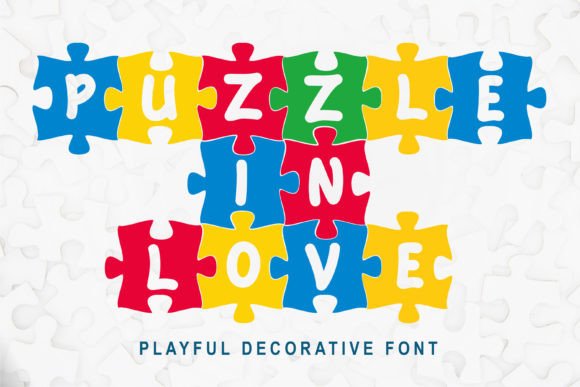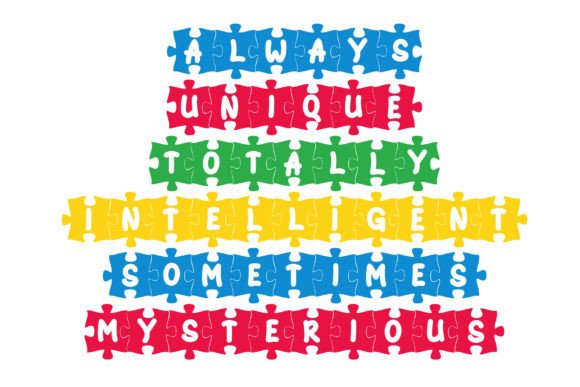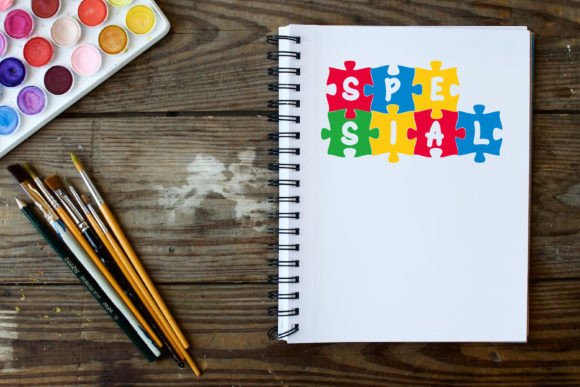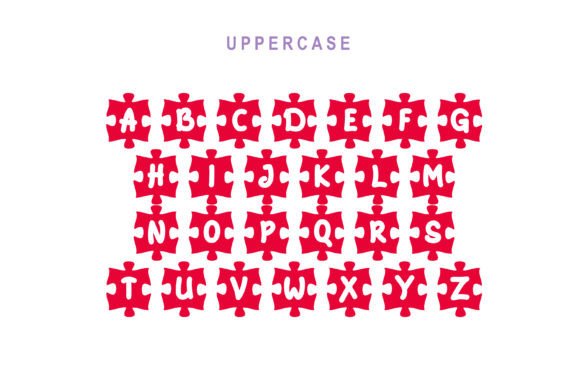
Puzzle in Love Font
About the Puzzle in Love Font
Welcome to the world of Puzzle in Love Font, a typeface that will inspire your next great project. Puzzle in Love is a unique and fun playful decorative font, featuring countinous puzzle pieces. Add this font to your creative ideas.
Puzzle in Love’s playful, decorative style makes it ideal for headlines, short slogans, logos, and packaging design where its unique character can shine. It works exceptionally well for projects targeting a younger demographic or brands with a fun, quirky personality. Avoid using it for body text or lengthy paragraphs; its intricate details become less legible at smaller sizes.
This font pairs well with clean sans-serif fonts like Open Sans or Lato for a balanced contrast. For a more playful aesthetic, consider pairing it with a rounded geometric sans-serif. A classic serif like Garamond could also provide a sophisticated counterpoint, grounding the whimsical nature of Puzzle in Love.
The overall personality is energetic and lighthearted, making it a strong choice for projects needing a bold, memorable visual impact.